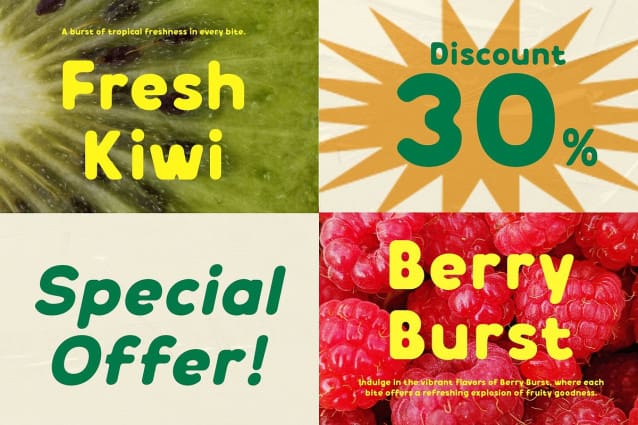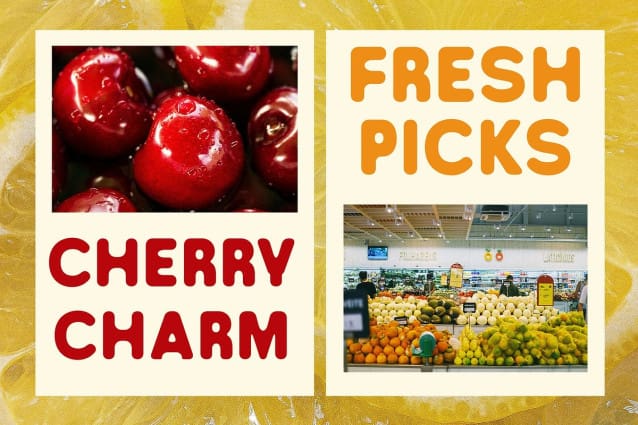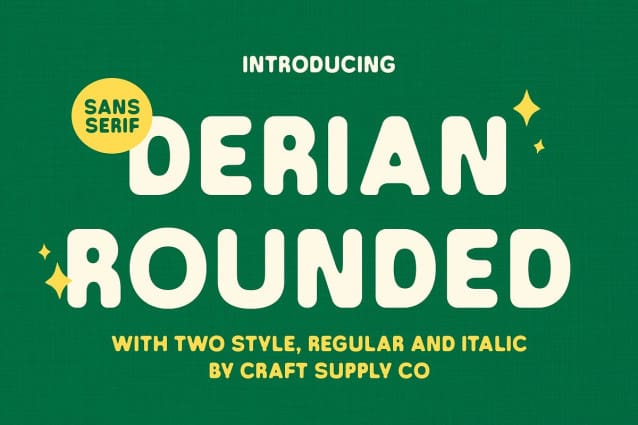
Derian Rounded Font
Derian Rounded Font is a modern sans-serif font that combines contemporary geometric shapes with rounded corners, resulting in a clean, minimalist design. The smooth curves and bold forms create a visually appealing and approachable aesthetic, making it ideal for projects aiming for a modern and cheerful vibe.
Bold with a Friendly Touch The thick, proportional characters of Derian Rounded convey strength and confidence while maintaining a friendly and welcoming feel. This balance of boldness and approachability makes it perfect for a wide range of design applications, from branding to advertisements, ensuring that your message is both strong and visually inviting.
Energetic and Cheerful Vibe Derian Rounded’s rounded design gives it a light and energetic atmosphere, perfect for projects that require a positive and dynamic appearance. Whether you’re designing playful branding, vibrant posters, or lively promotional materials, this font adds a refreshing touch that draws attention without overwhelming the viewer.
Ideal for Fresh, Positive Designs Perfect for designs that aim to radiate optimism and freshness, Derian Rounded shines in various applications. Its geometric and rounded form ensures readability while giving your project a modern, upbeat tone. From tech startups to creative agencies, Derian Rounded is a versatile font that infuses your designs with a sense of warmth, energy, and positivity.